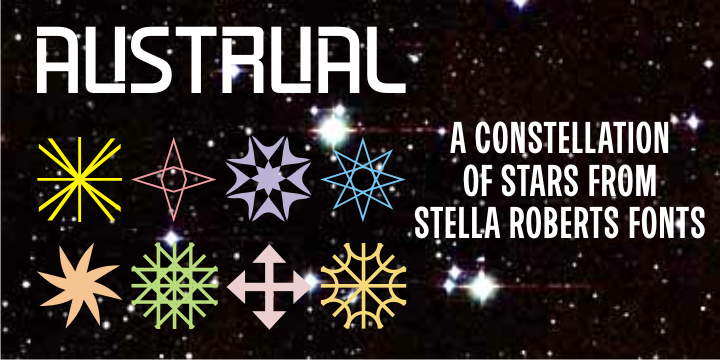
Austrual SRF is a dingbat font published by Stella Roberts Fonts.
Austrual SRF is a collection of star dingbats created by Jeff Levine for Stella Roberts Fonts. There are over sixty images for adding the perfect intergalactic embellishment to any project.